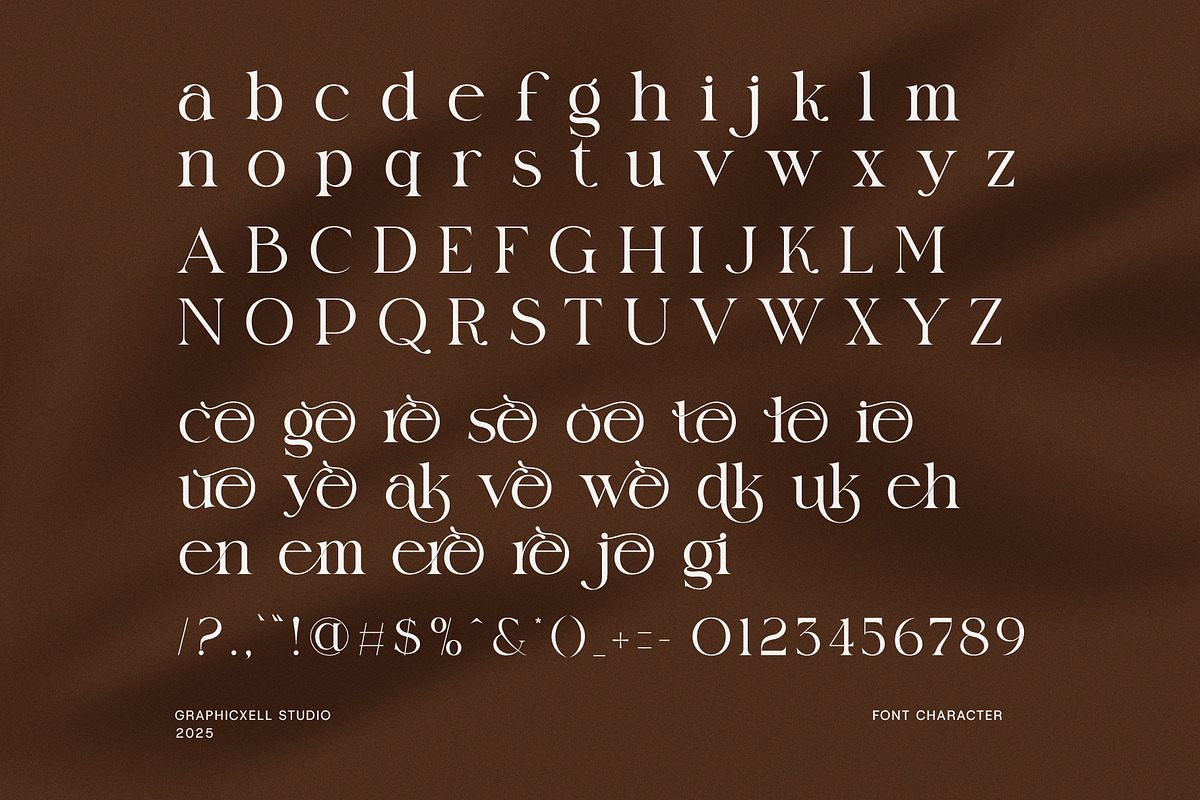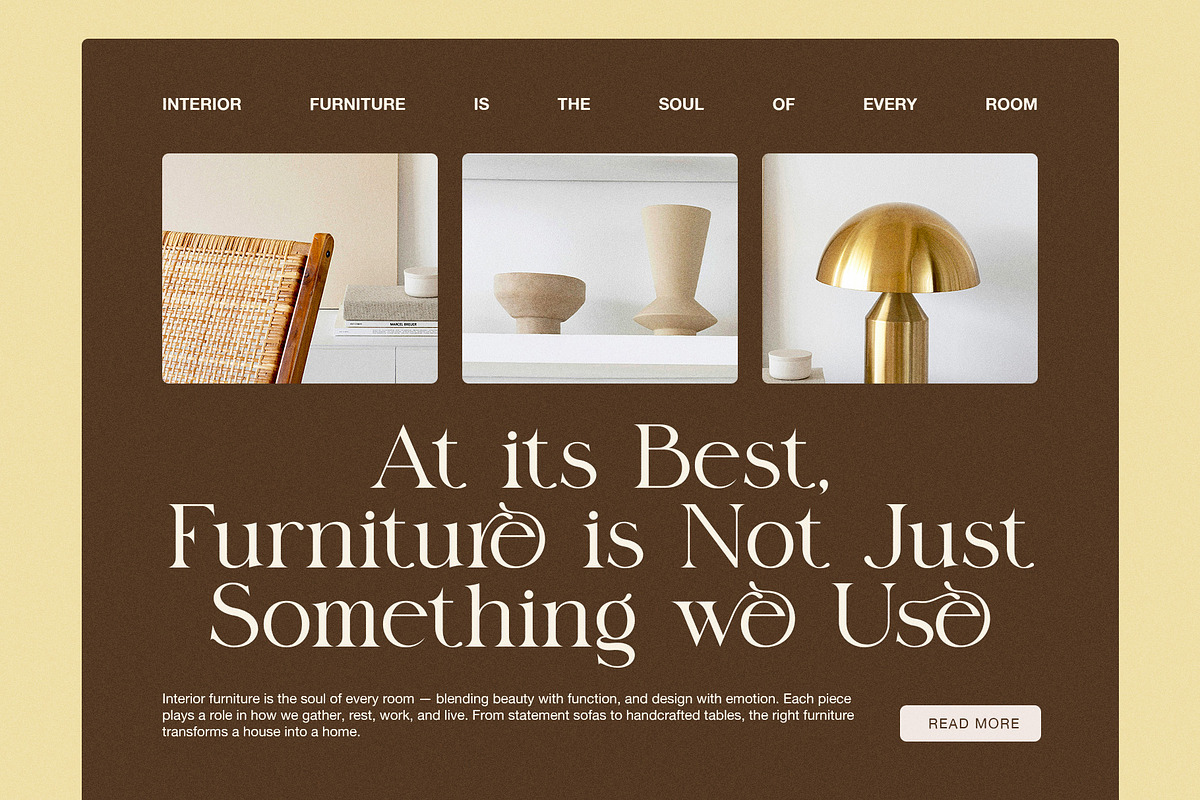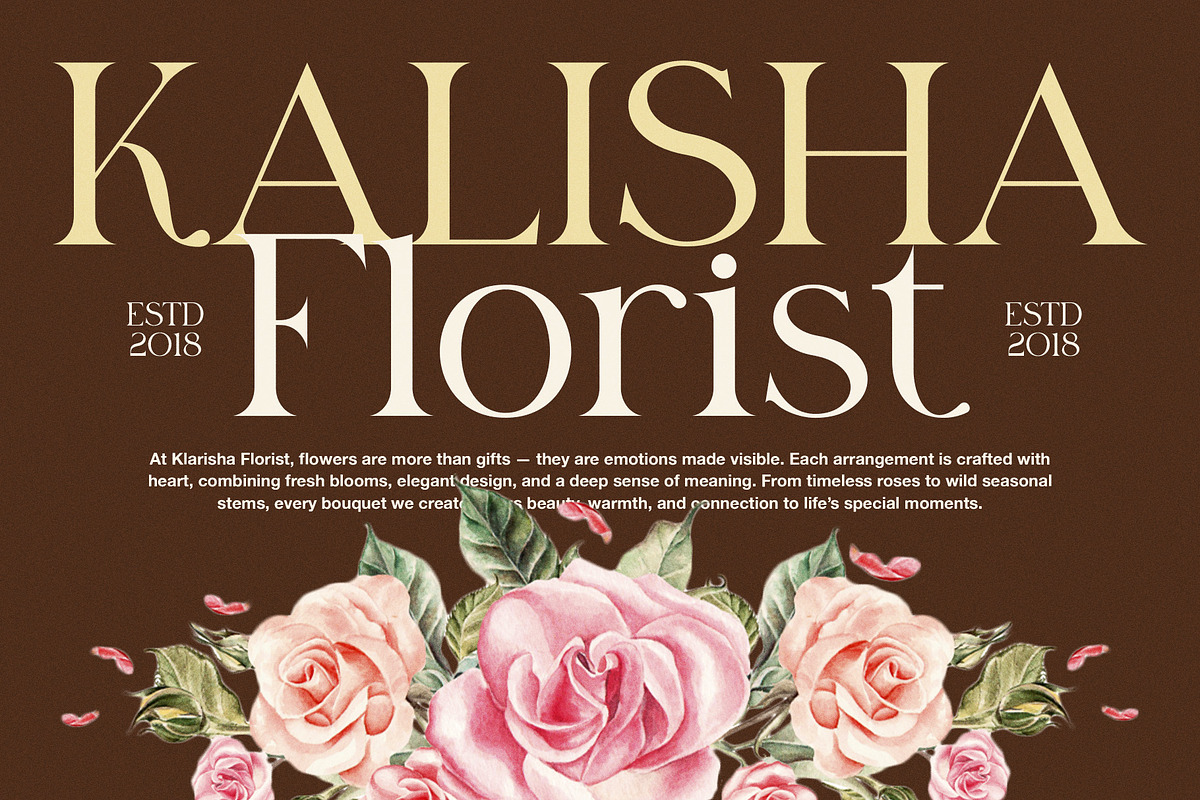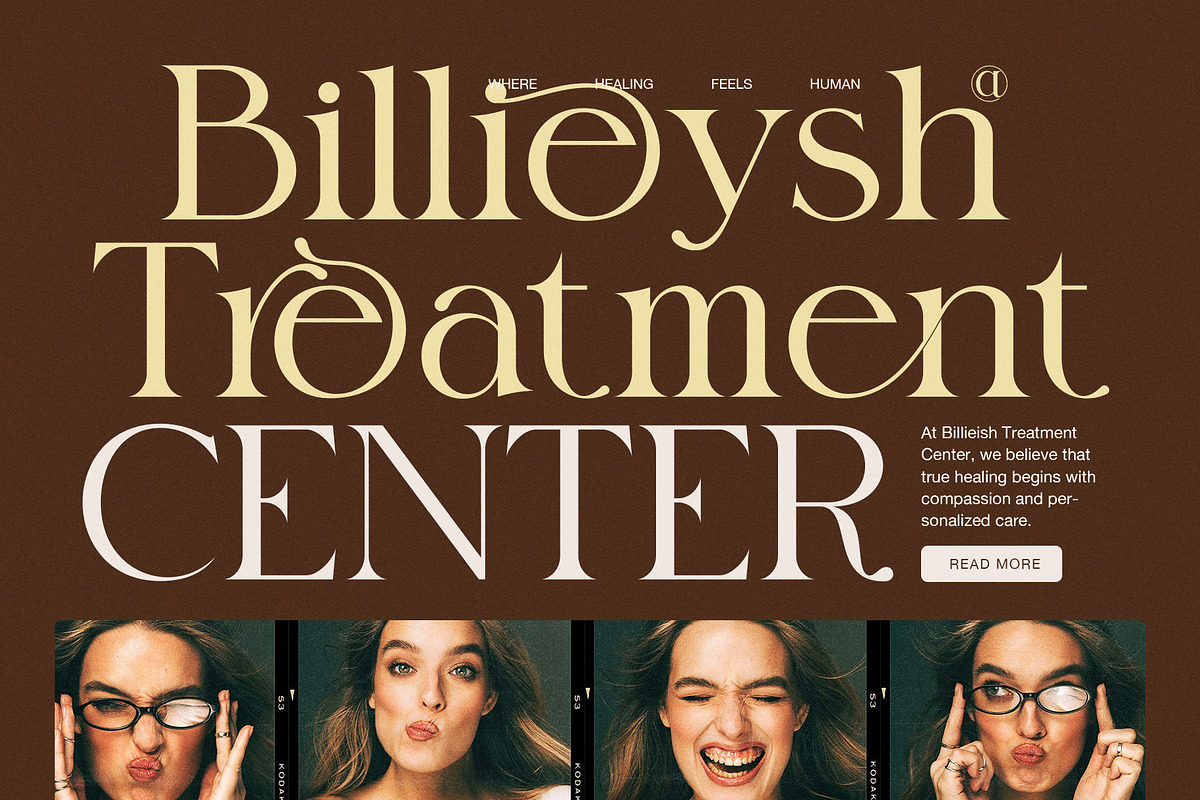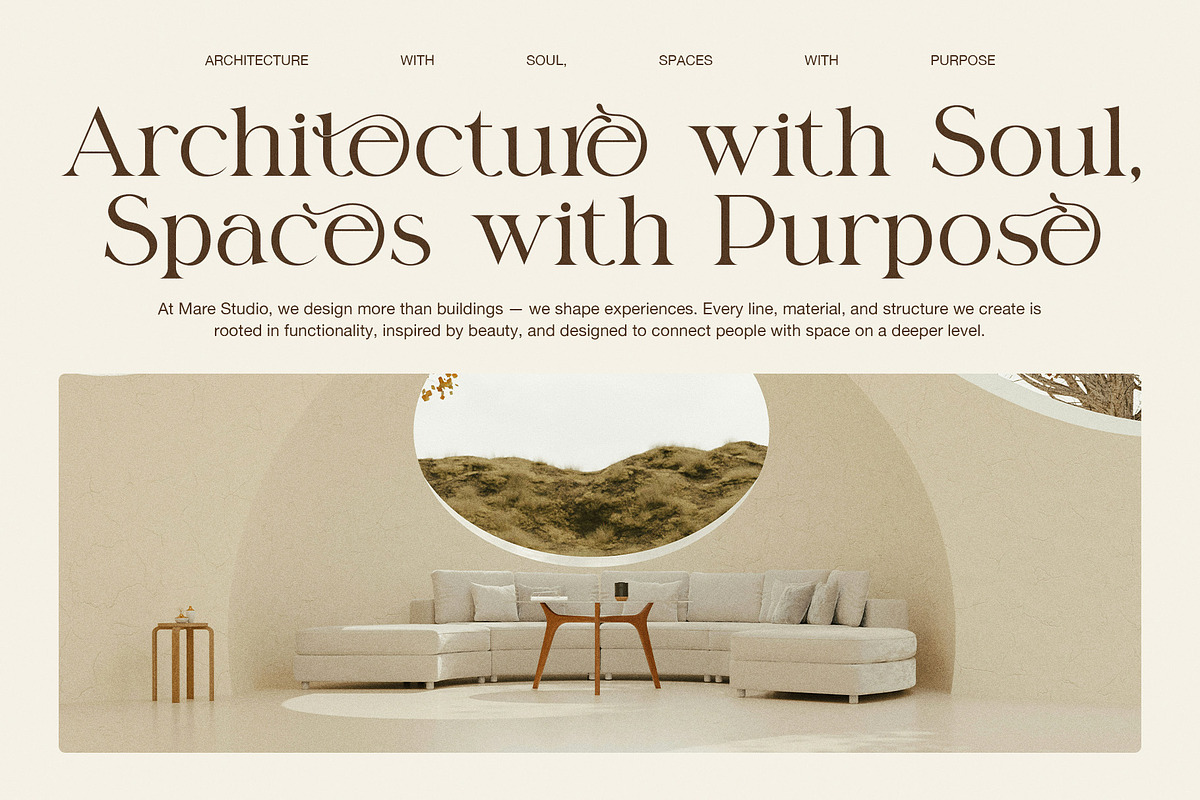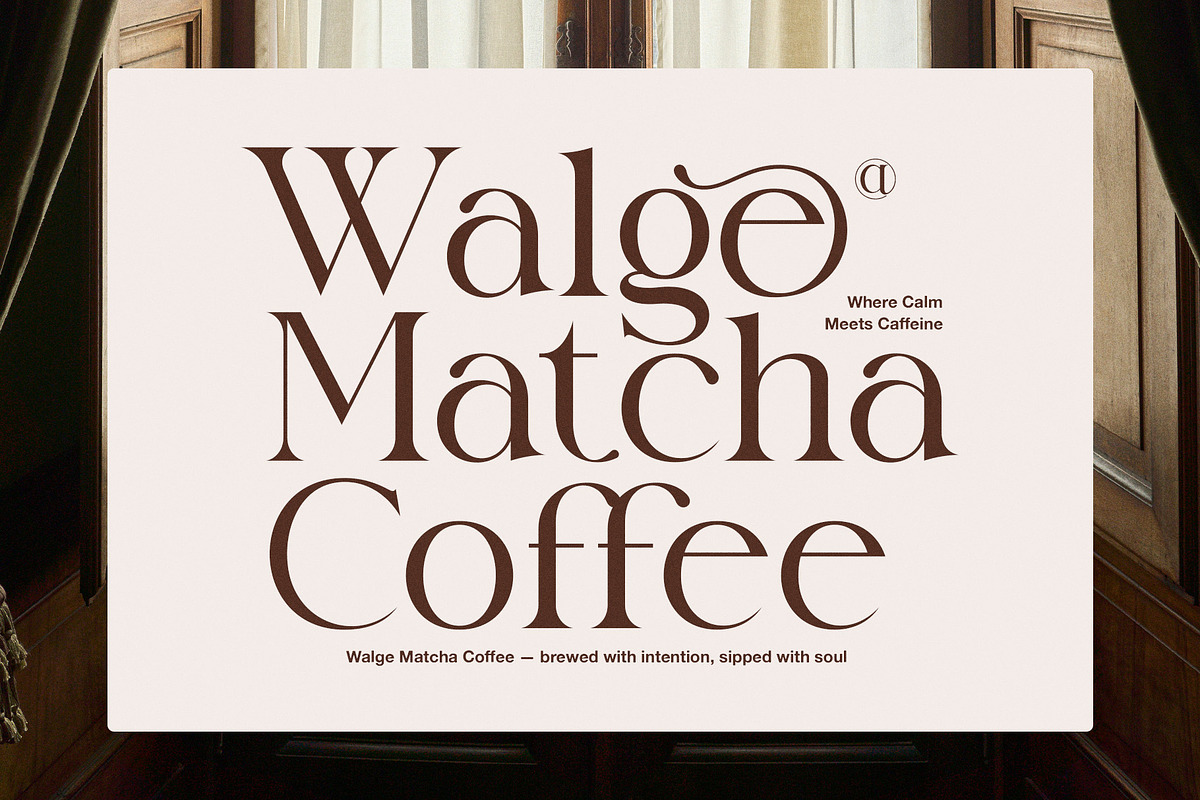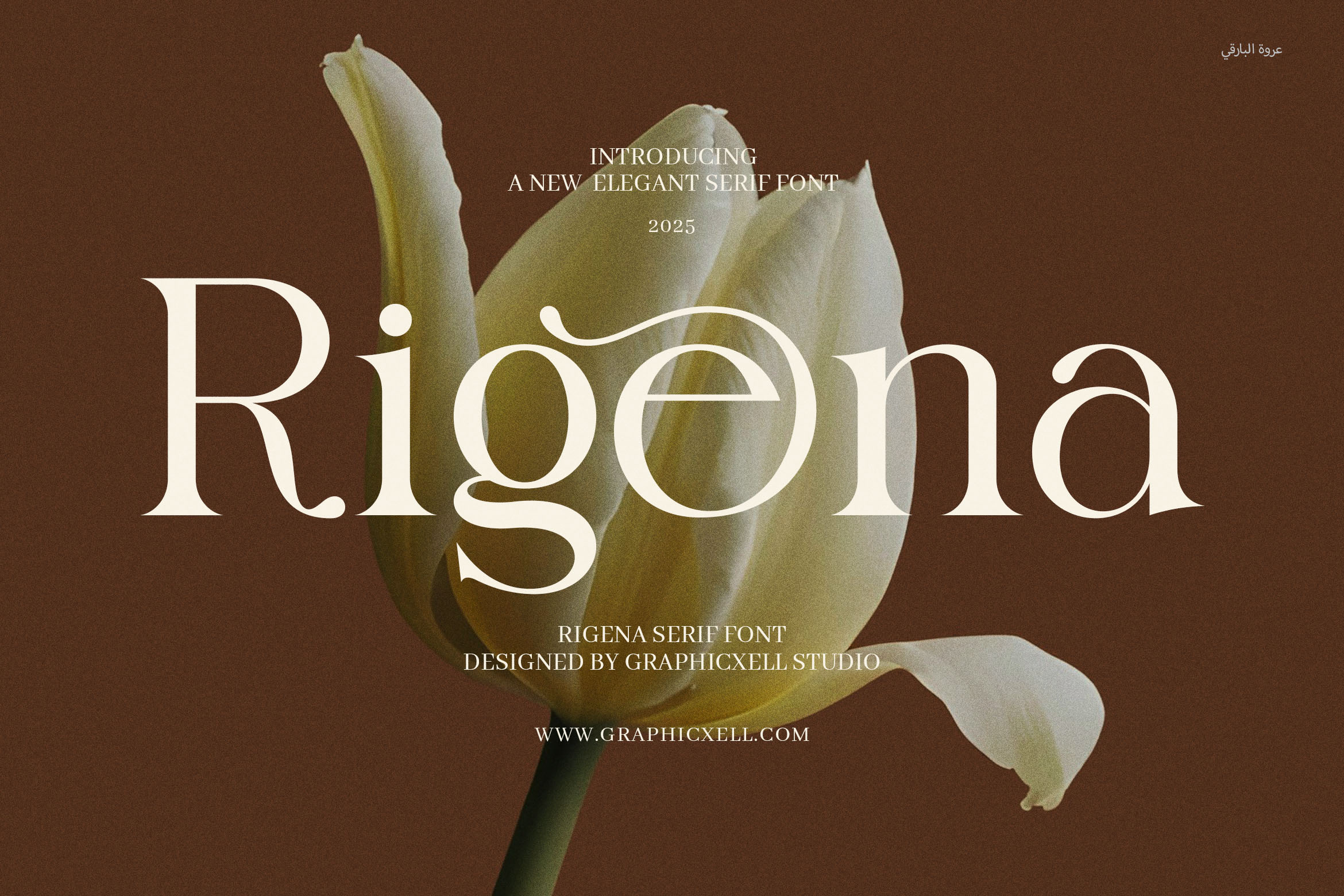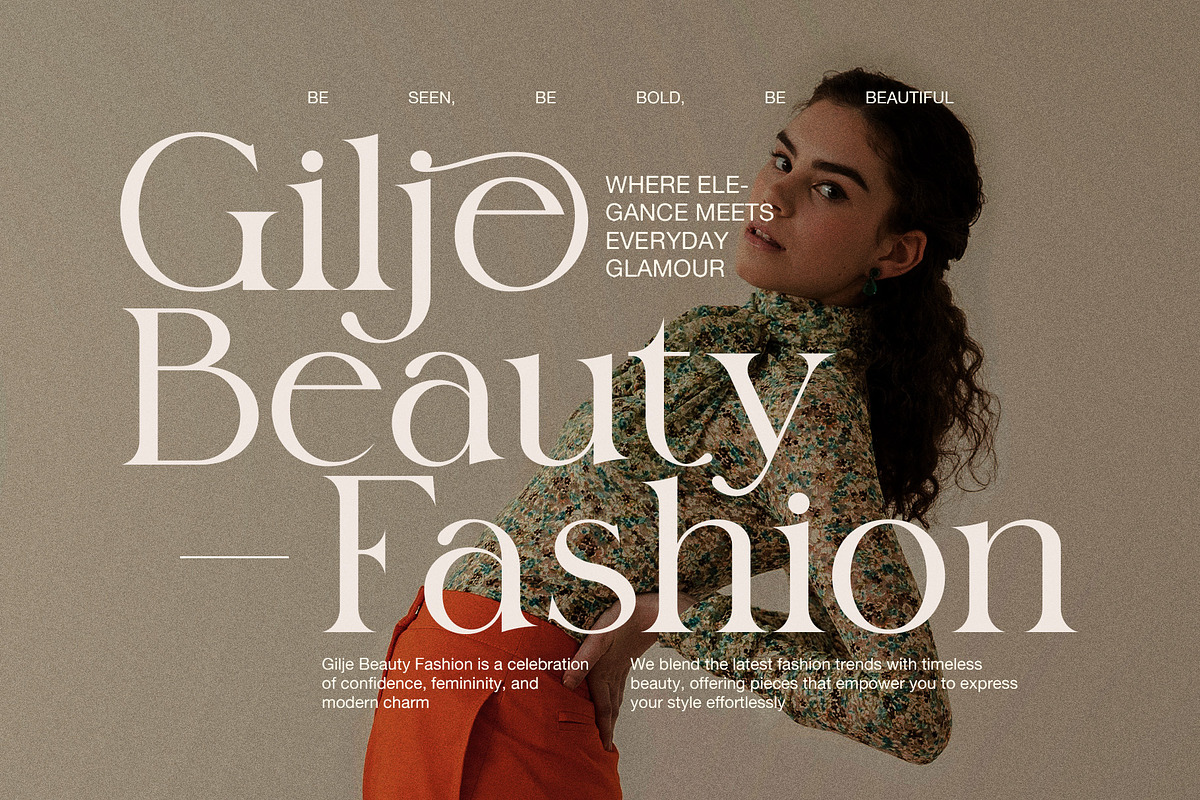
Rigena Elegant Serif Font
Rigena Elegant Serif Font is a timeless blend of sophistication and creativity—a modern serif typeface designed to make every word feel elevated and intentional. Crafted with elegant curves, high-contrast strokes, and subtle flourishes, Rigena embodies classic beauty with a contemporary edge. It’s the perfect font for brands and creatives looking to leave a lasting impression.
Whether you're designing for luxury branding, logo design, editorial layouts, websites, packaging, or promotional materials, Rigena adds a graceful yet bold touch. Its elegant form is especially suited for boutiques, high-end products, fashion labels, culinary brands, and modern lifestyle content that demands a refined aesthetic.
Rigena features a full set of uppercase and lowercase characters, punctuation, numerals, and multilingual support, making it as functional as it is stylish. The font’s structure ensures readability across digital and print mediums while its ornamental serifs and subtle details elevate the visual impact of your design. From wedding invitations and beauty products to magazine covers and advertising campaigns, Rigena brings a premium, editorial feel to your work.
What sets Rigena apart is its balance between tradition and innovation. Inspired by classic serif fonts, it carries a rich sense of heritage, but with sleek, modern refinements that feel fresh and current. Its expressive character shapes make it ideal for use in headlines, logos, and high-impact typographic compositions, while its clean, professional finish ensures versatility in more understated designs.
Rigena is more than just a font—it’s a creative companion for designers seeking to craft visuals with elegance, power, and distinction. Its charm lies in its adaptability, bringing sophistication to minimalist layouts or complementing more ornate, layered compositions.